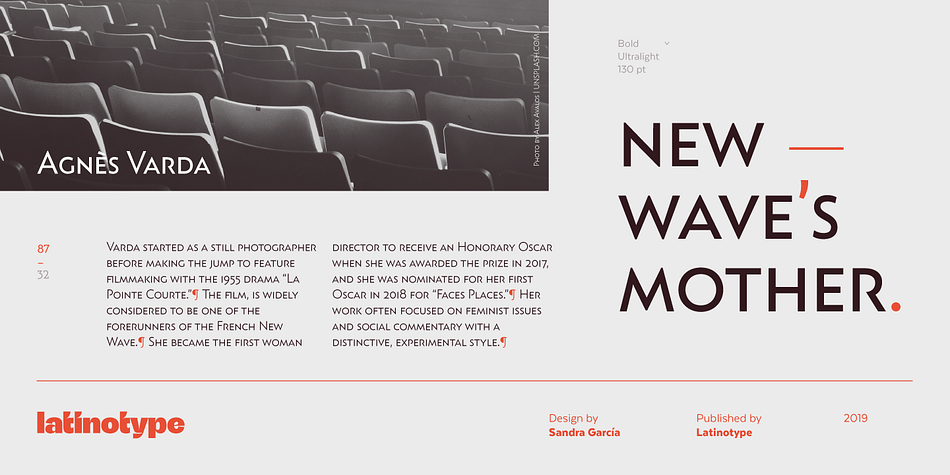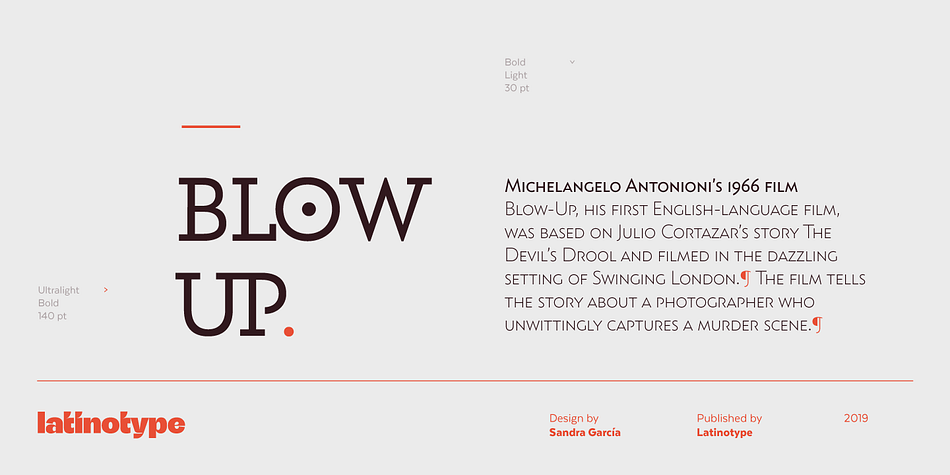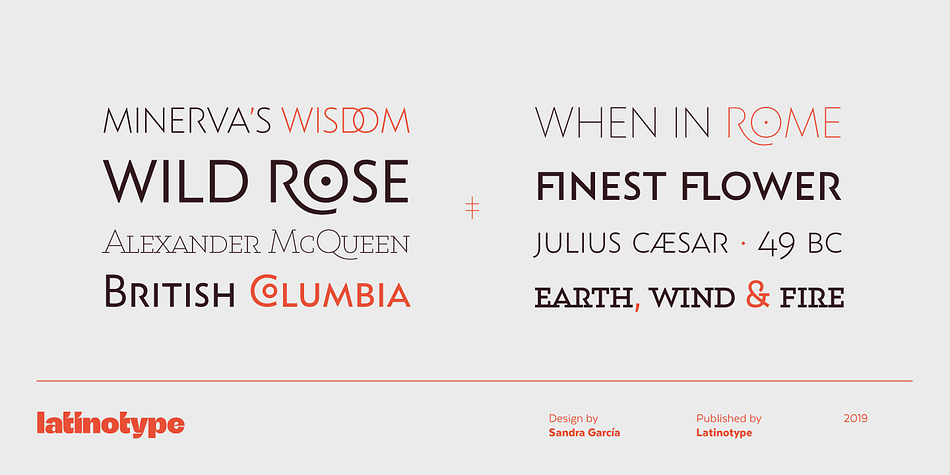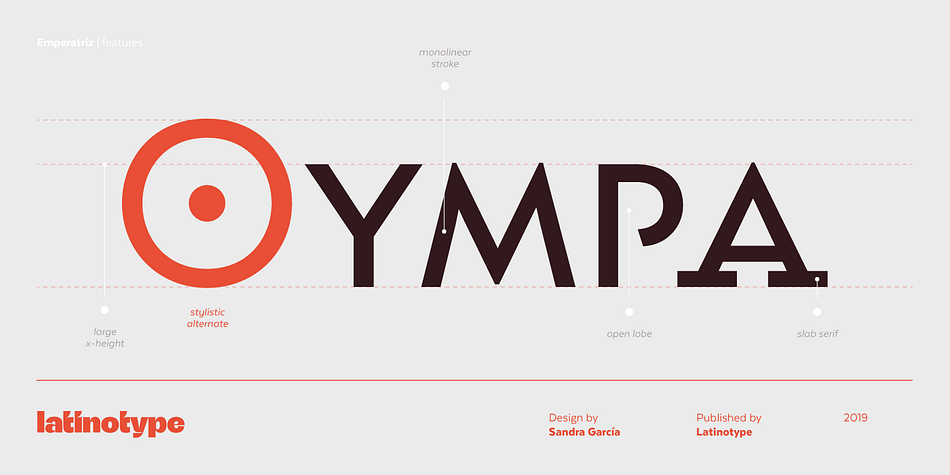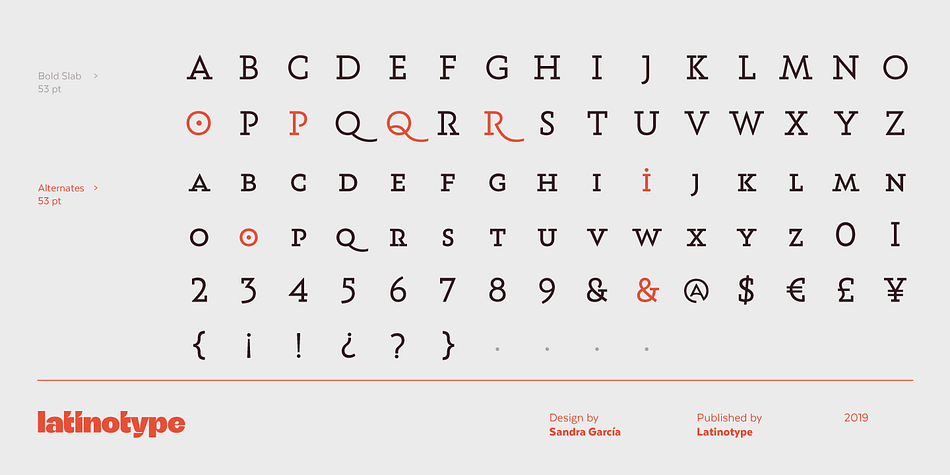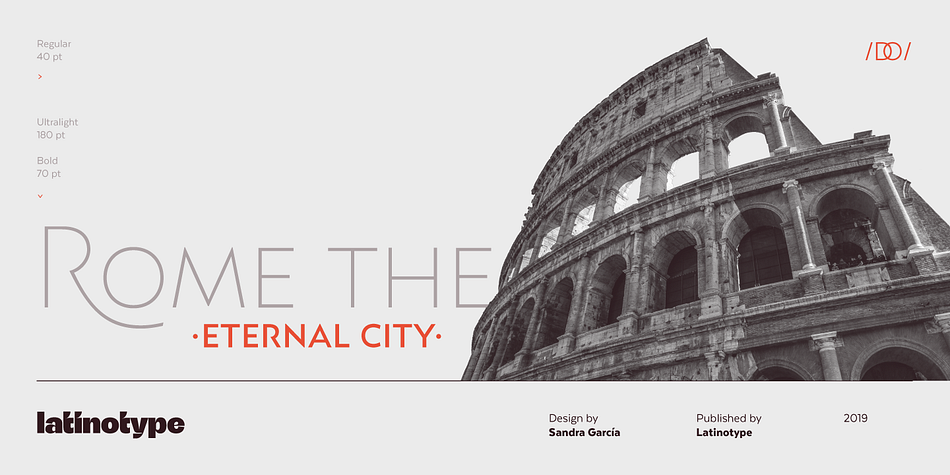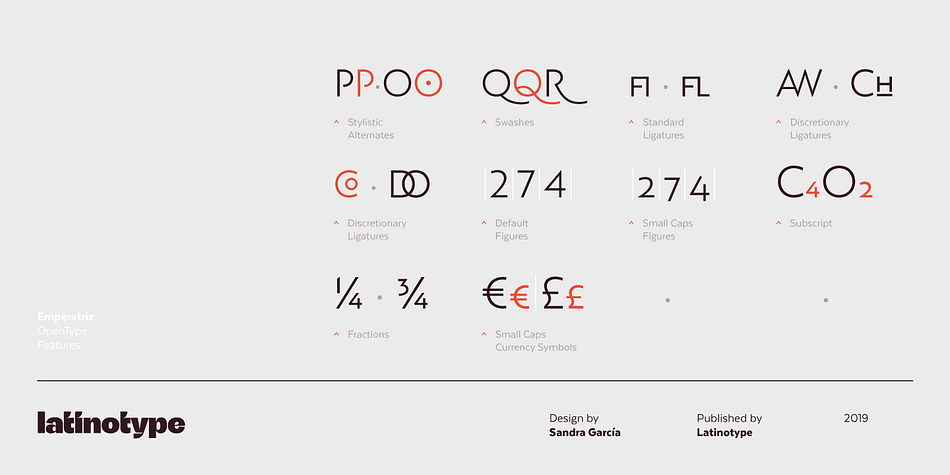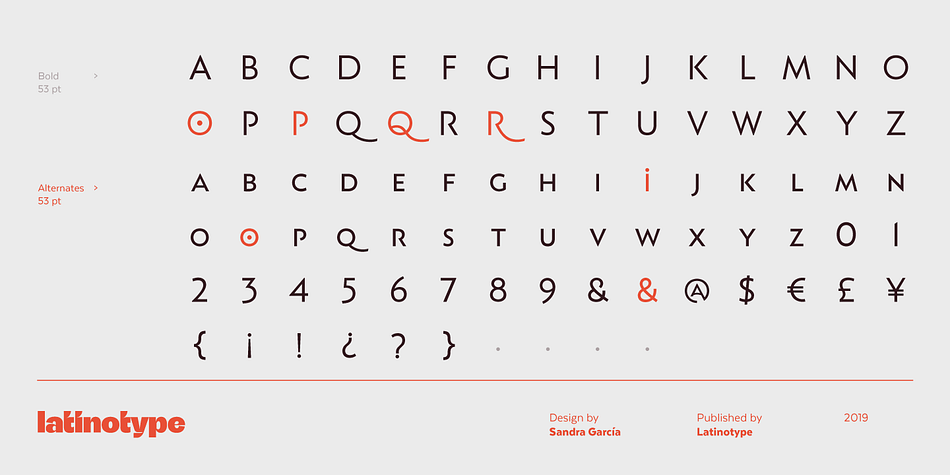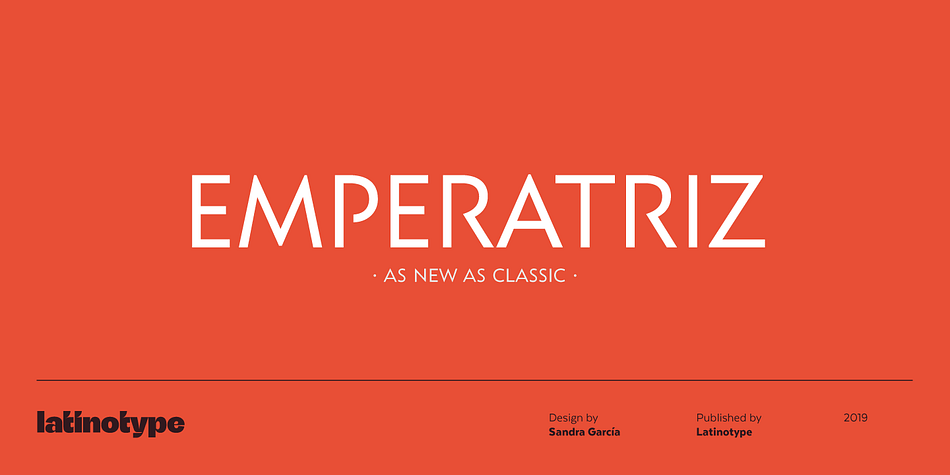
Emperatriz is a display sans and display slab font family. This typeface has eight styles and was published by Latinotype.
Emperatriz—with deep roots in the Roman tradition—is an elegant font and, above all, firmly situated in the present, featuring monumental forms and a classical design yet with a contemporary twist. It is a refreshing, clean, modern display font, perfect for the editorial design of magazines and catalogs, for the creation of titles and short texts, on book covers and large format publications, or as part of a corporate identity, logos, packaging and labels. Every variant in the family has generous counter forms, with ligatures and alternative capitals (Q, R, P, O), as well as oldstyle and Roman numerals, manicules, and monetary and mathematical symbols, providing a complete set with language support for more than 200 Latin script languages.